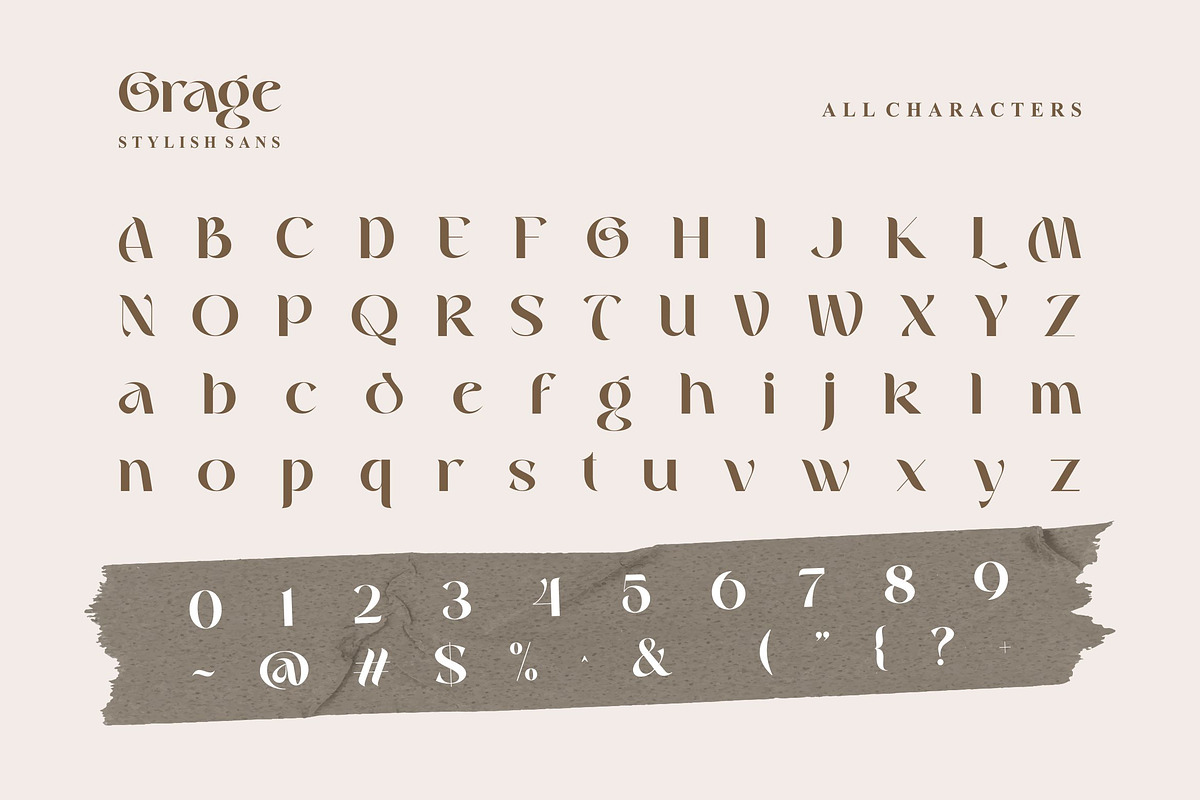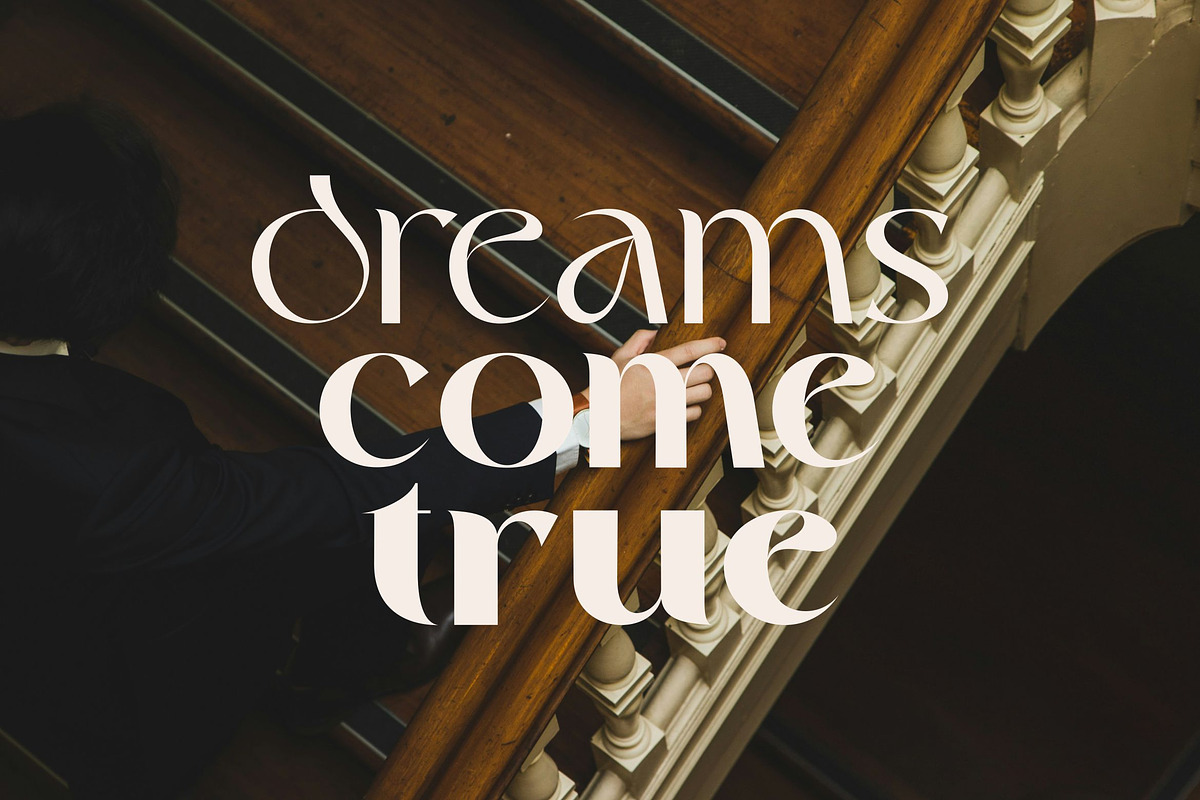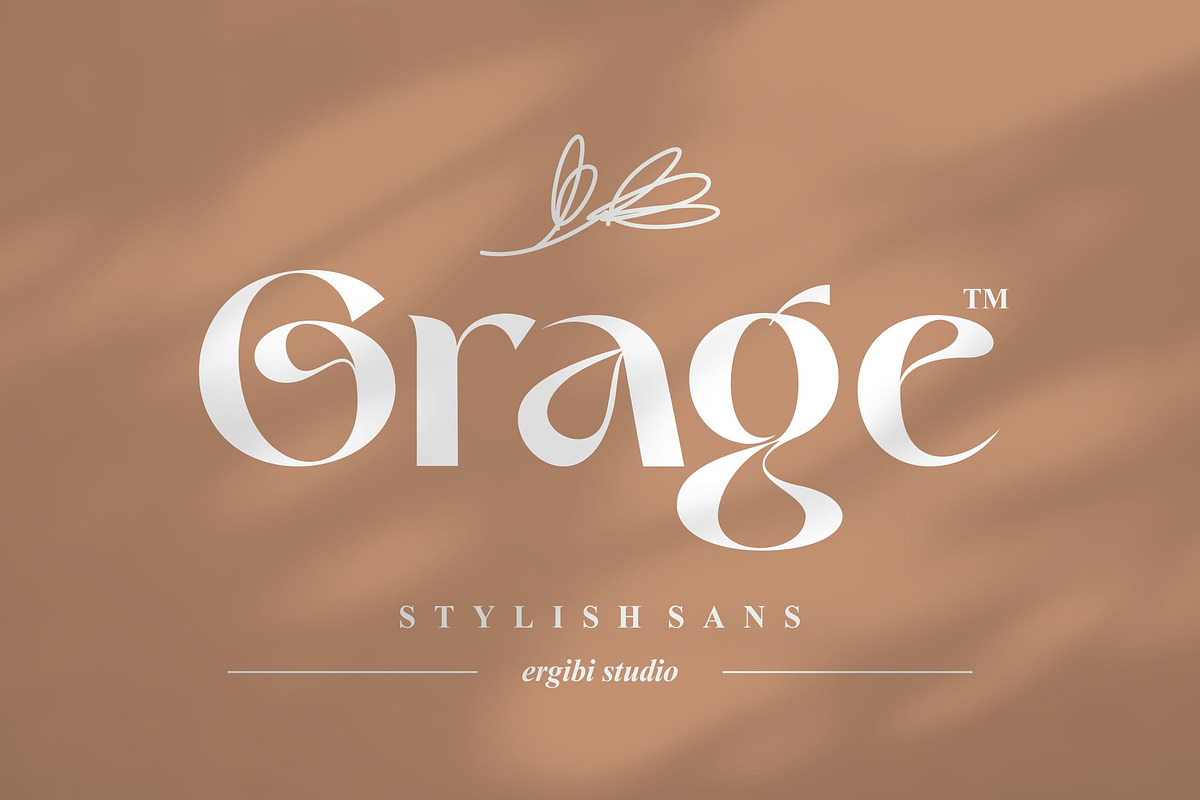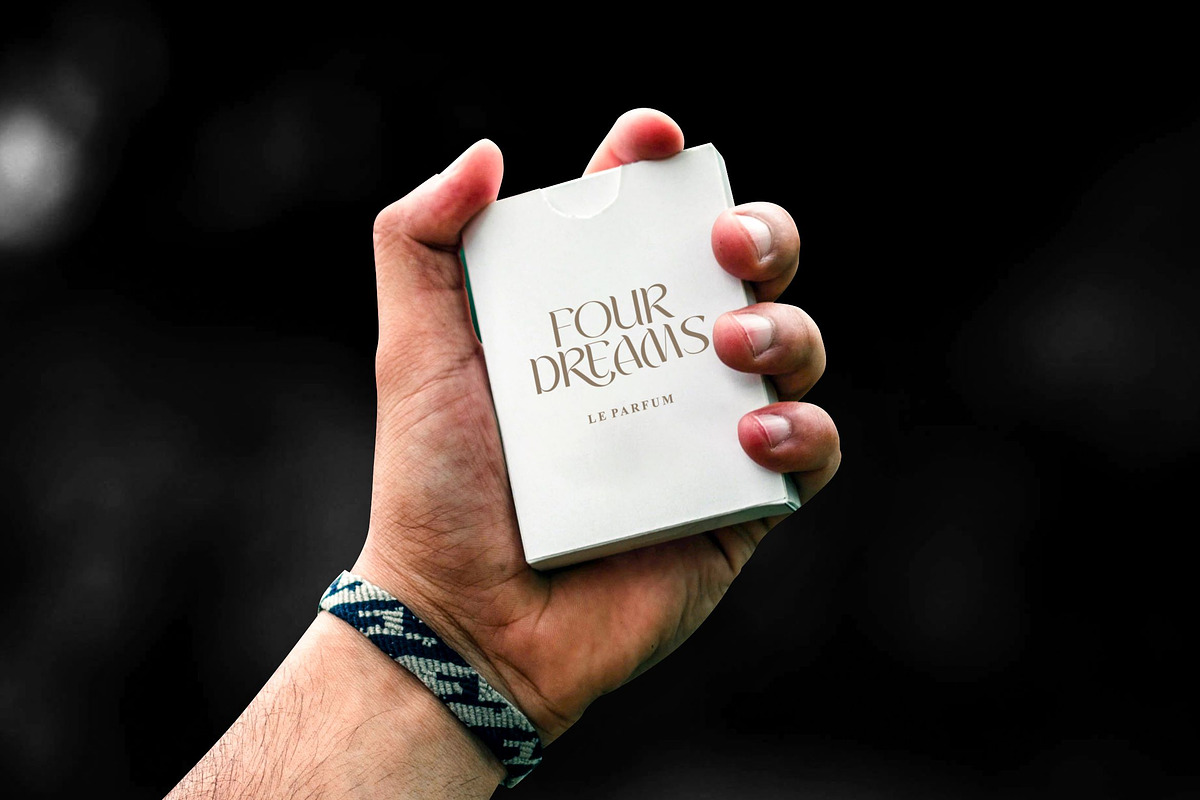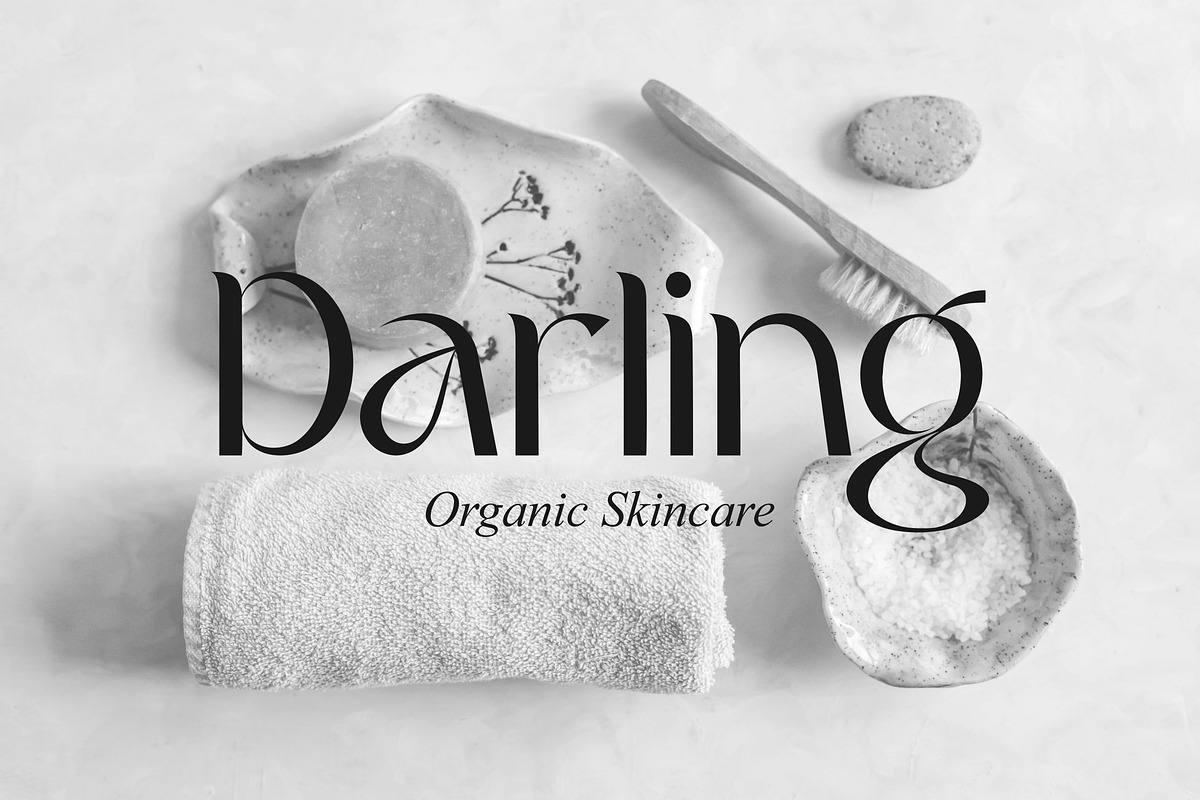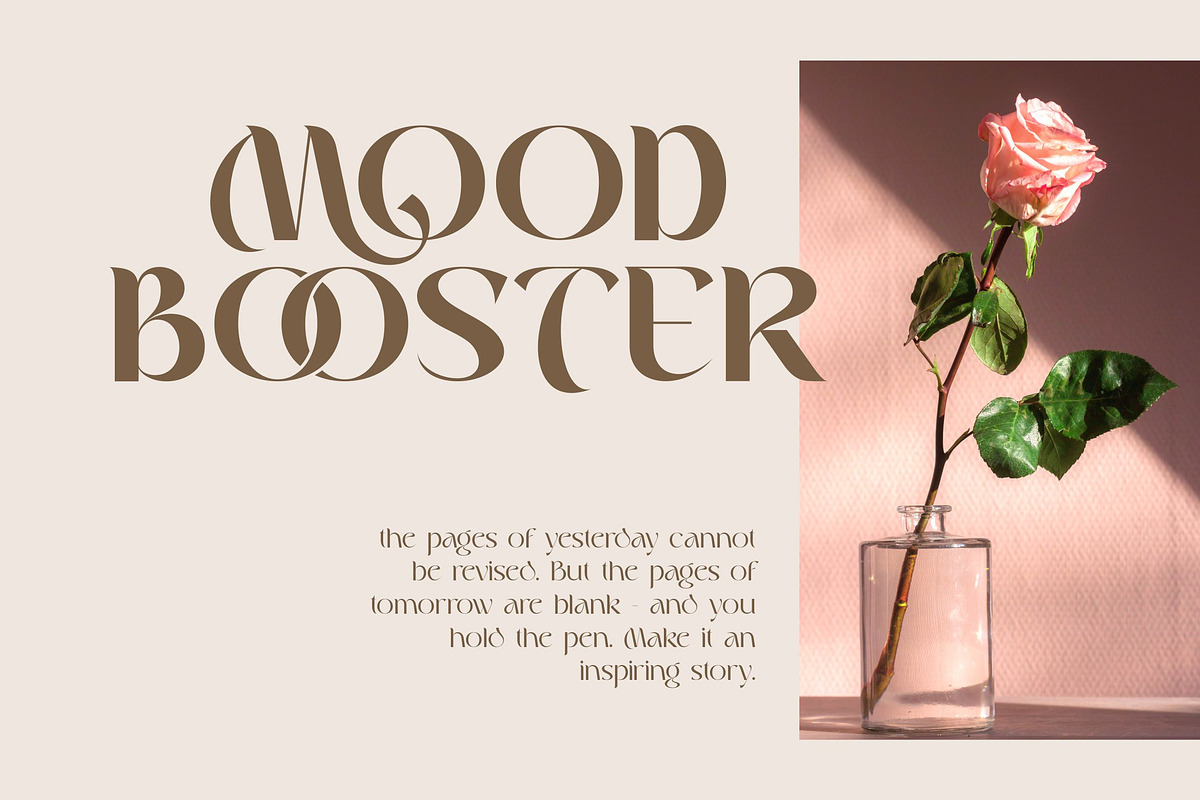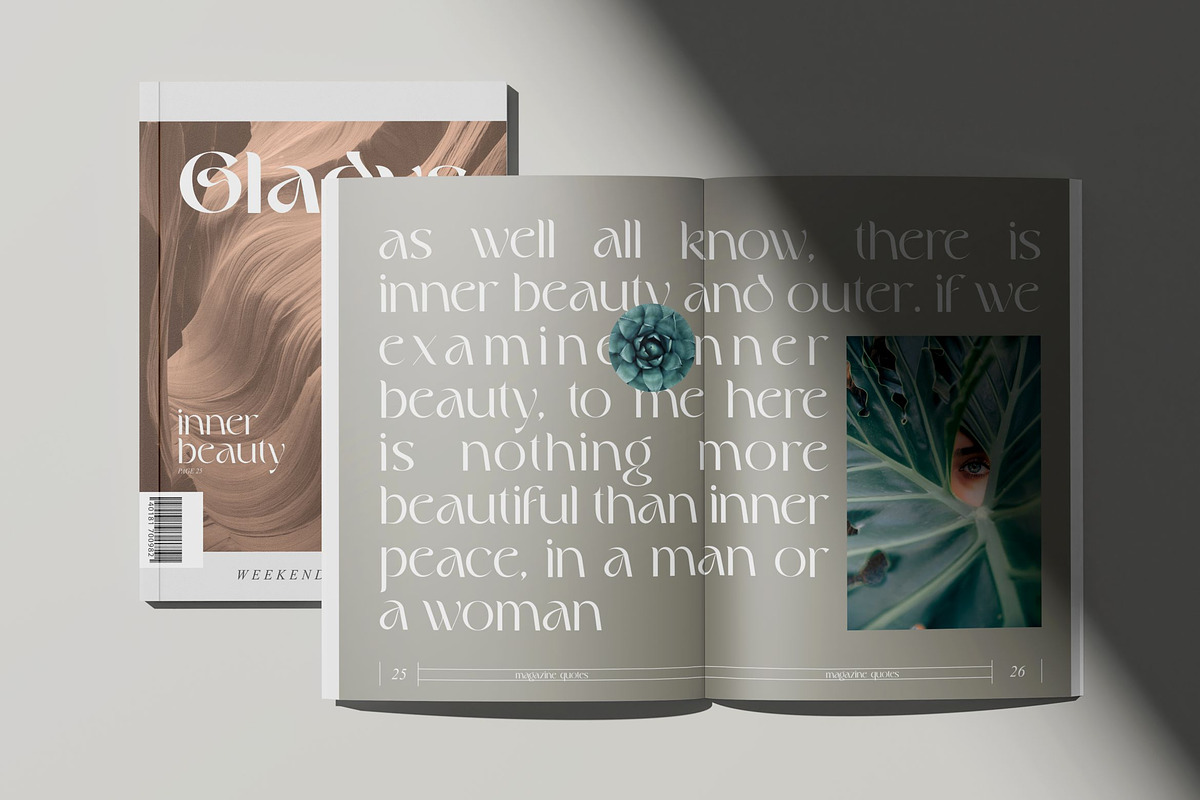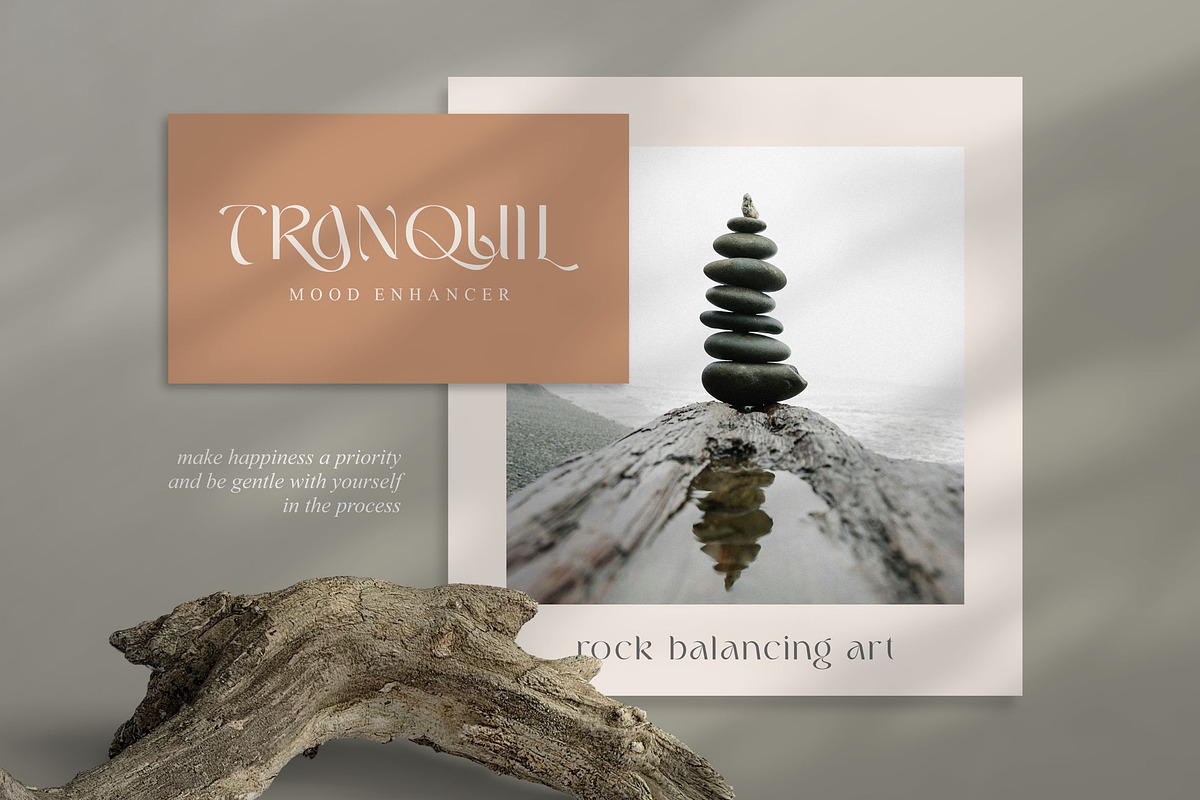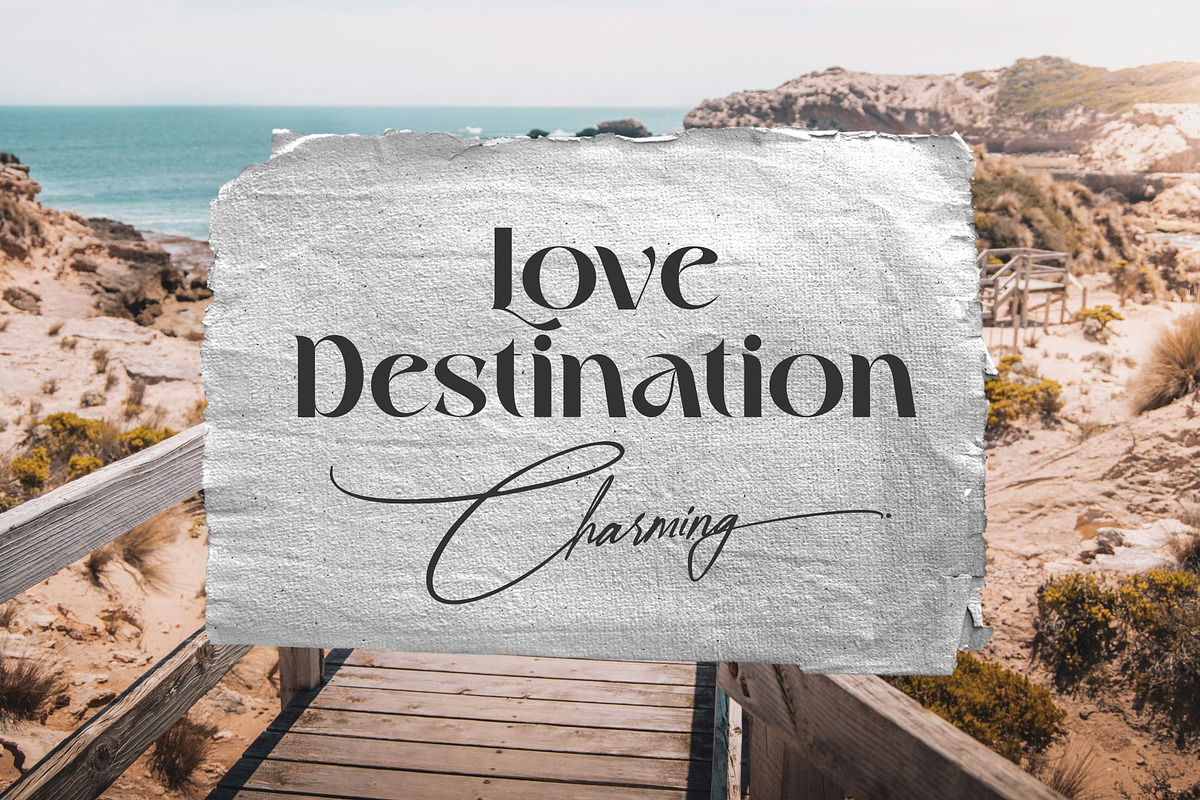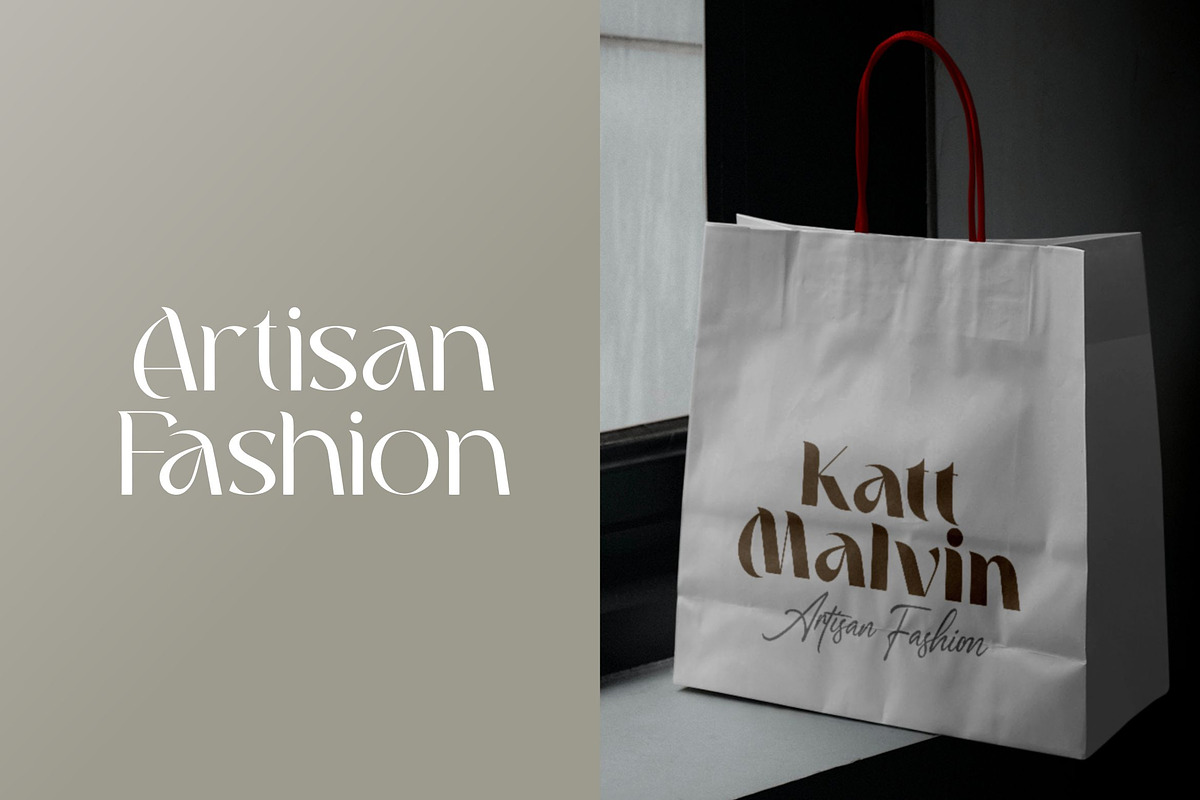
Grage - Stylish Sans
Grage Stylish Sans. This font has unique and, make it great to be used for modern and minimalistic design theme. The unique ligatures on serif makes this typeface cool and stands out rather than the regular serif font, perfectly for headlines, logos, posters, packaging, coffee shops, restaurants, magazine’s headers, signs or gift/post cards,cafe’s and weddings or any type of advertising purpose.